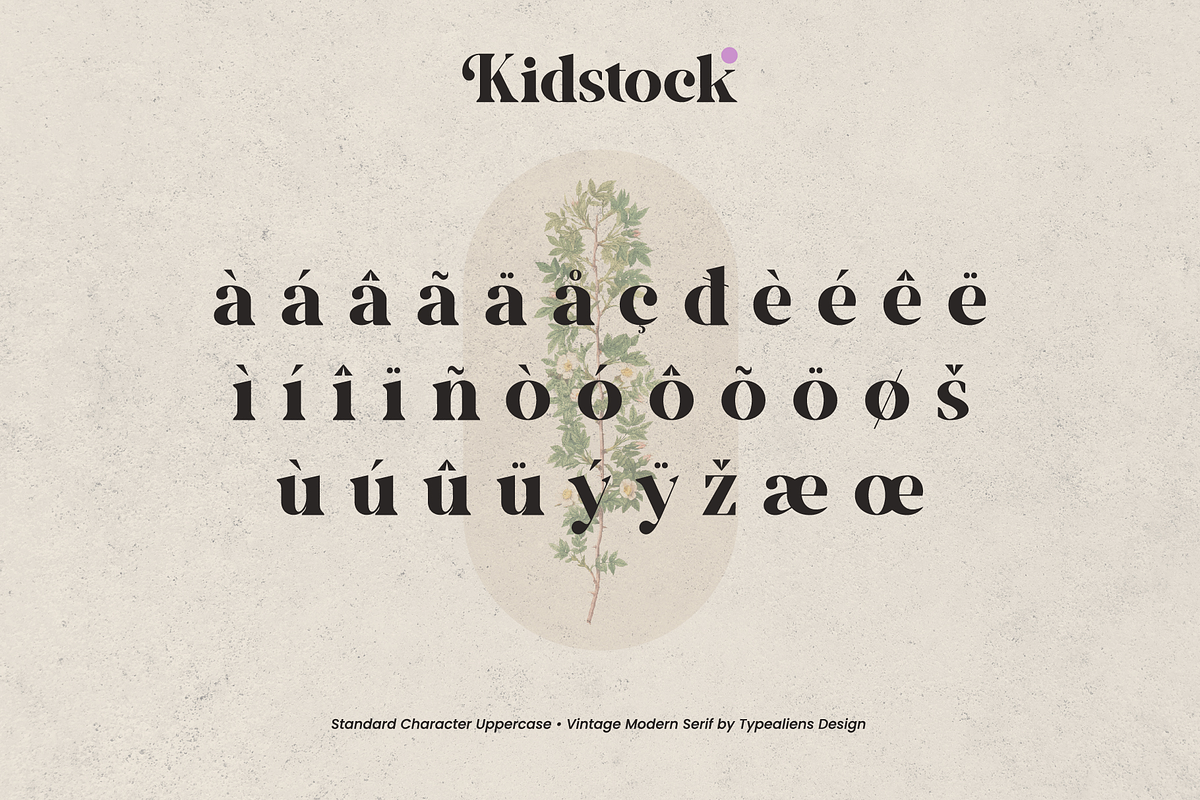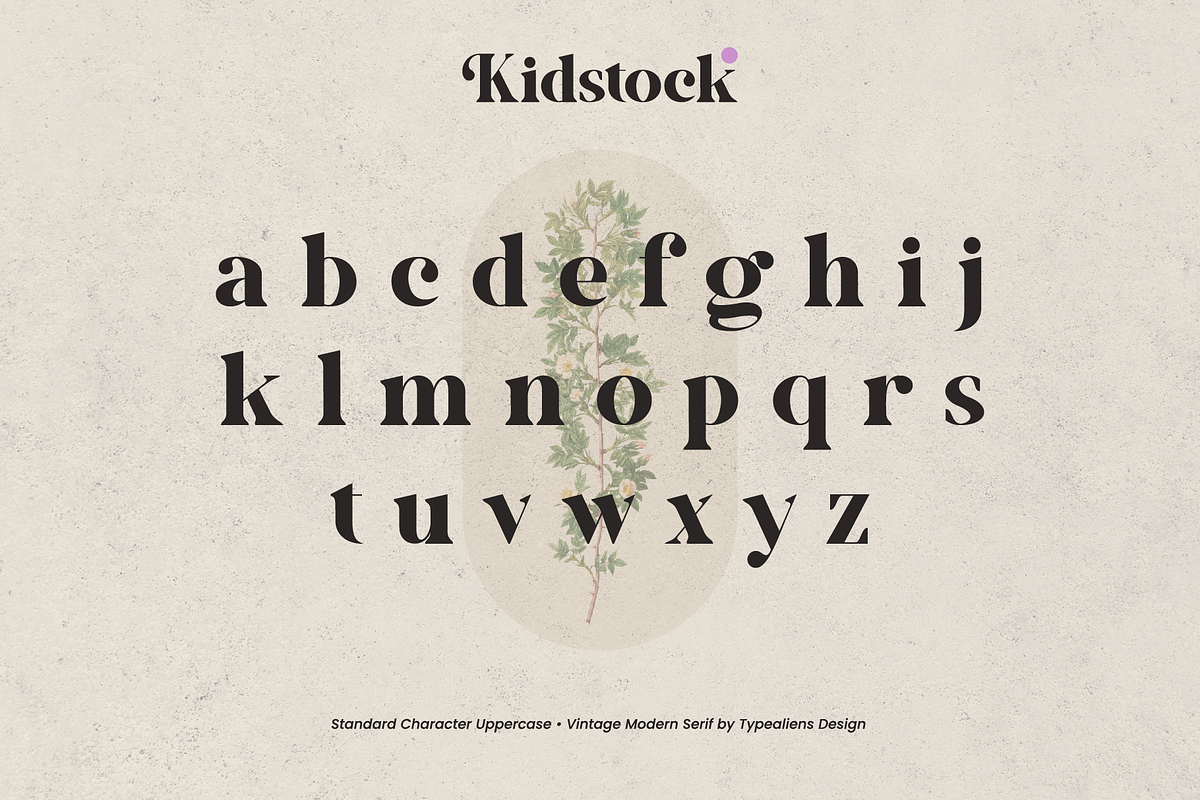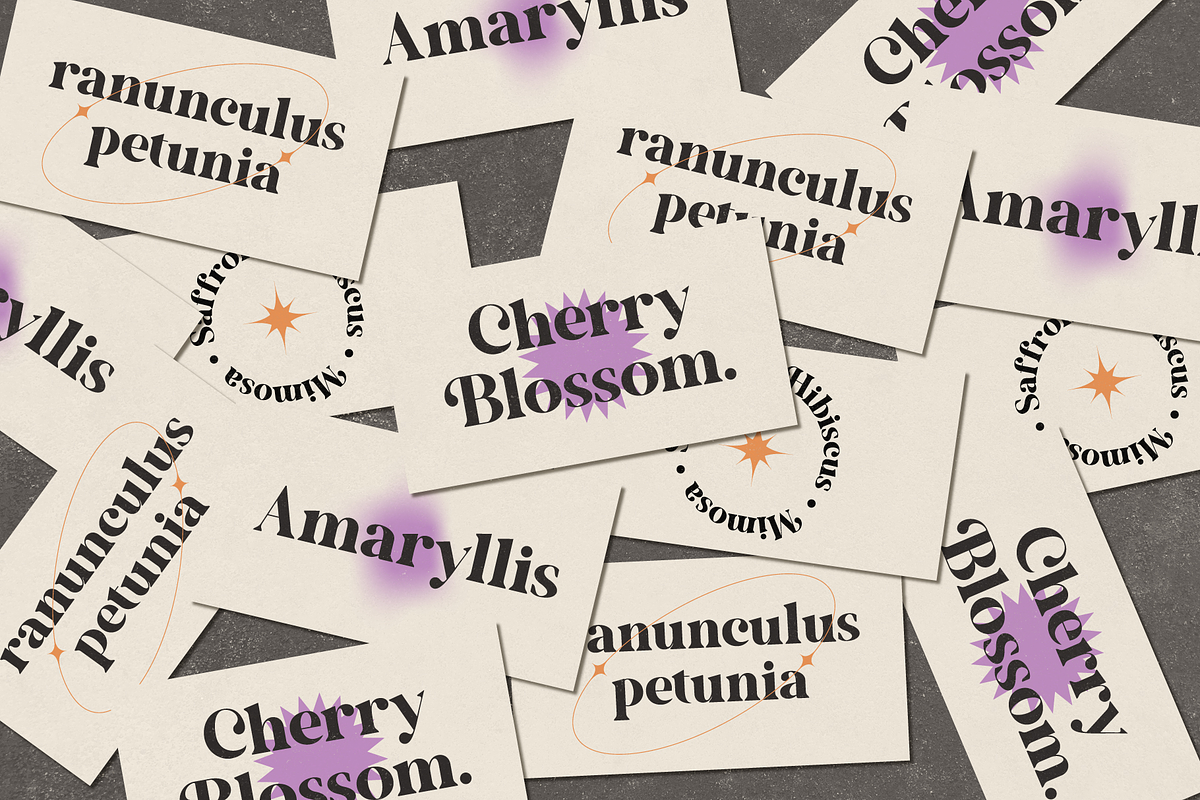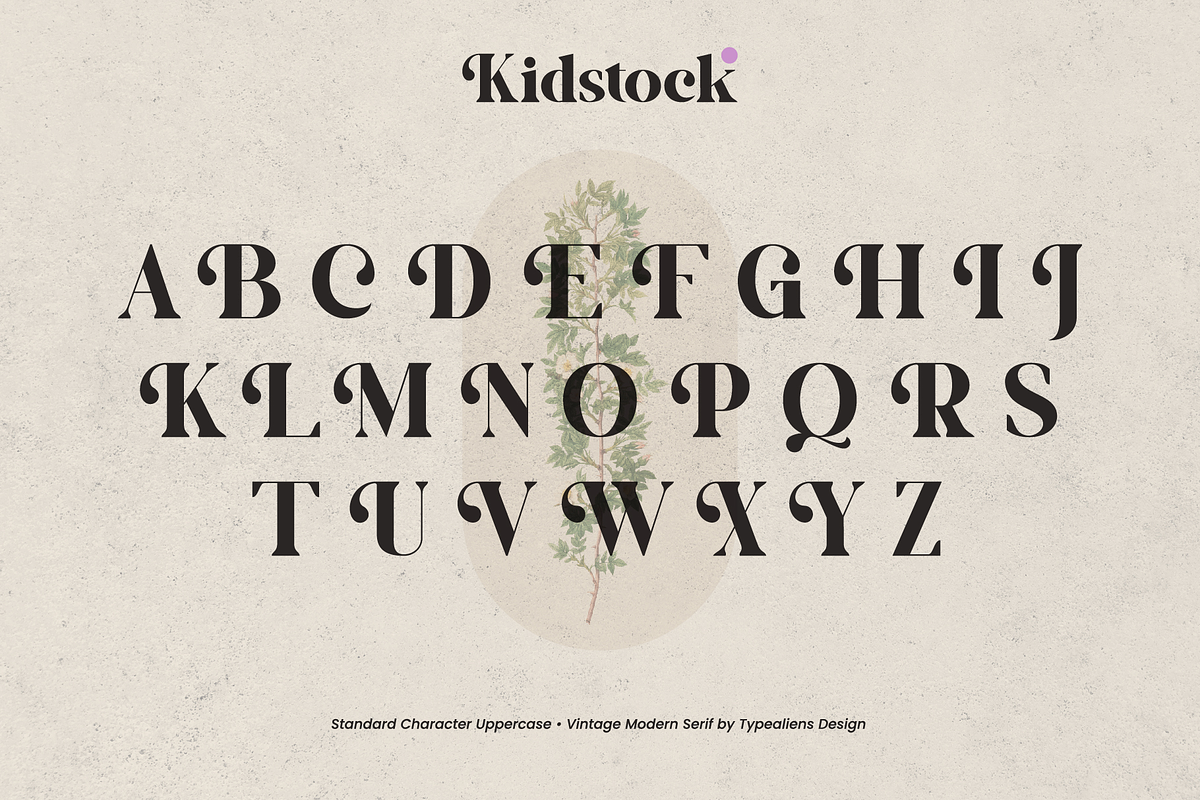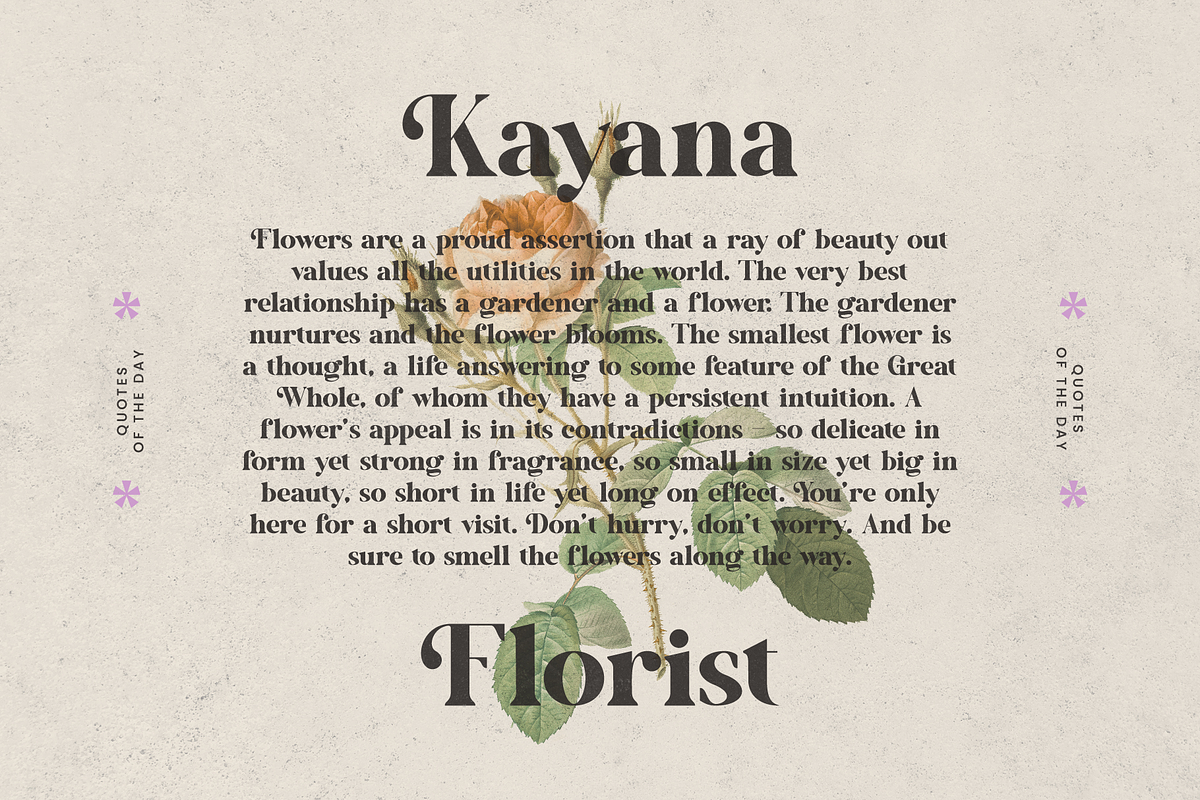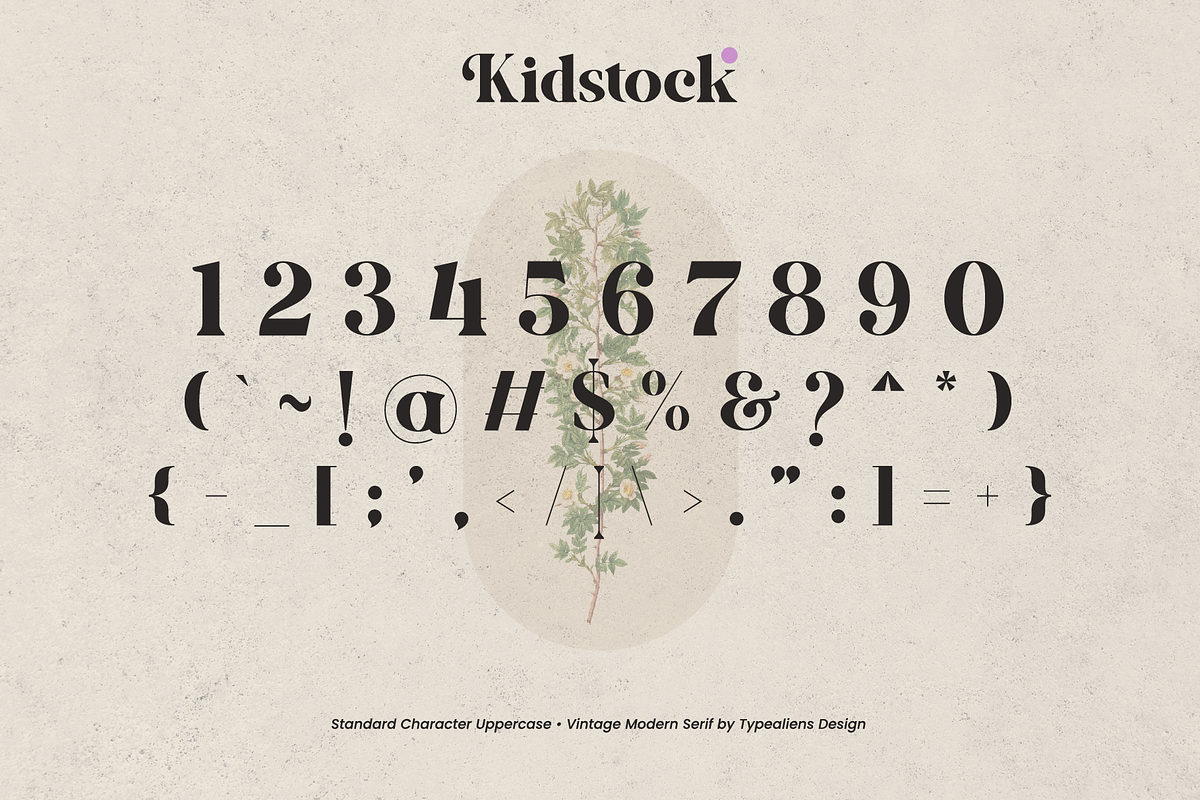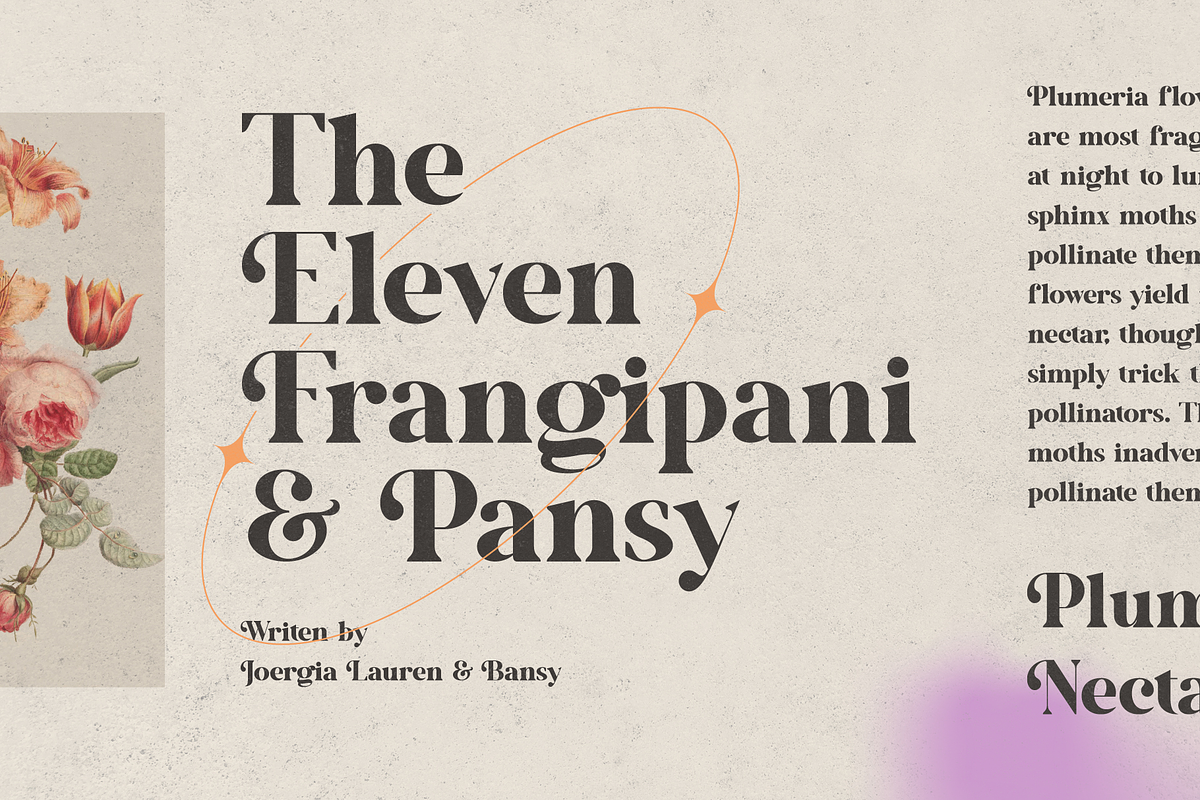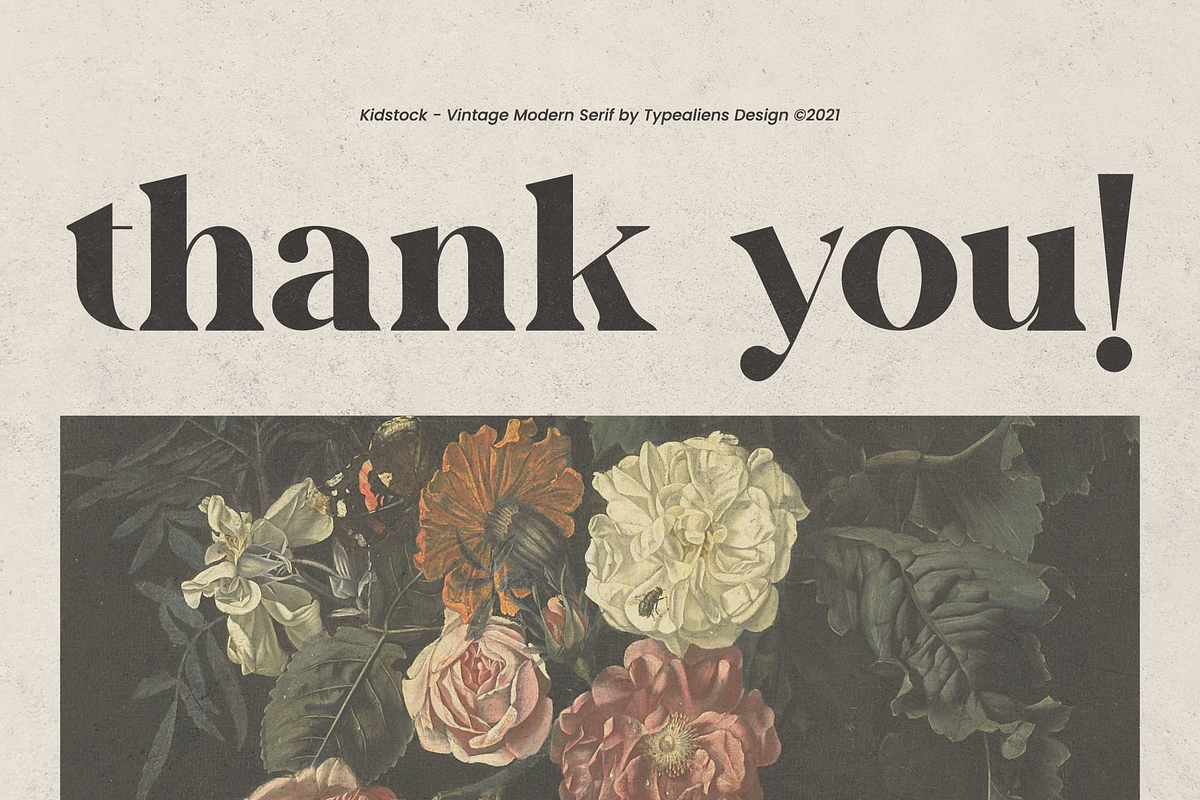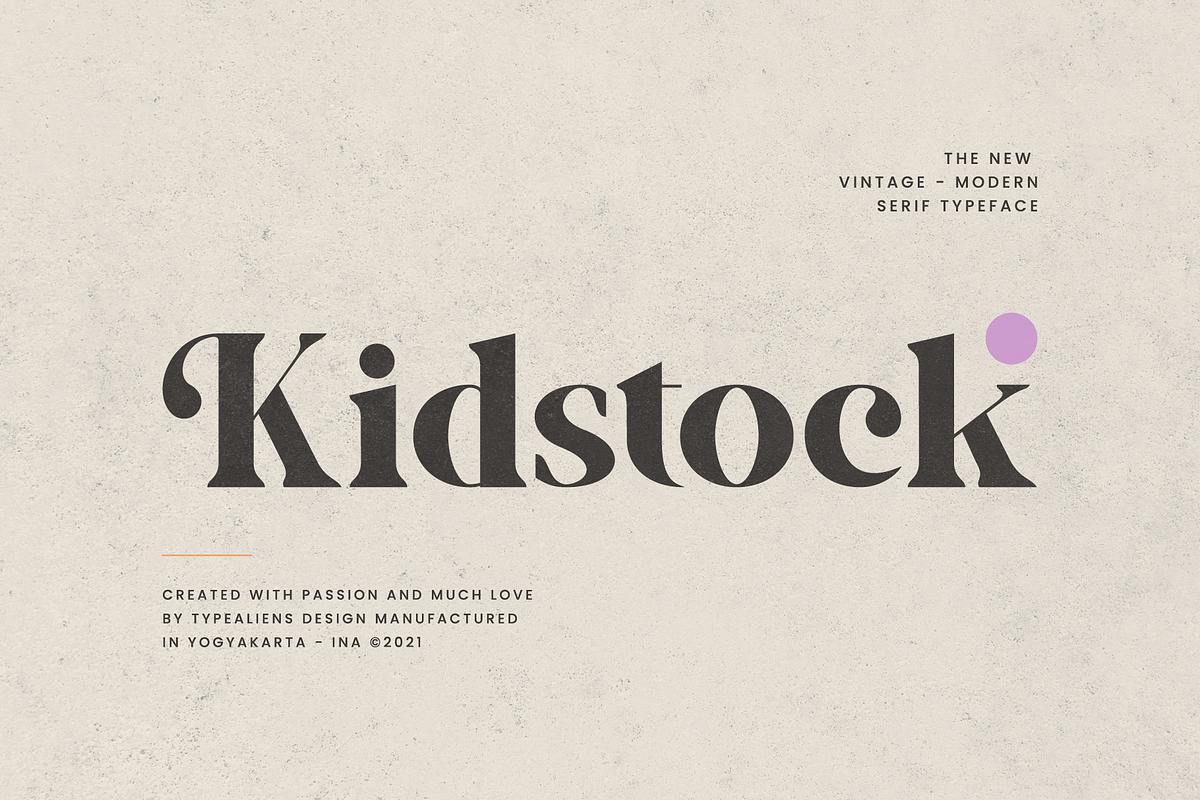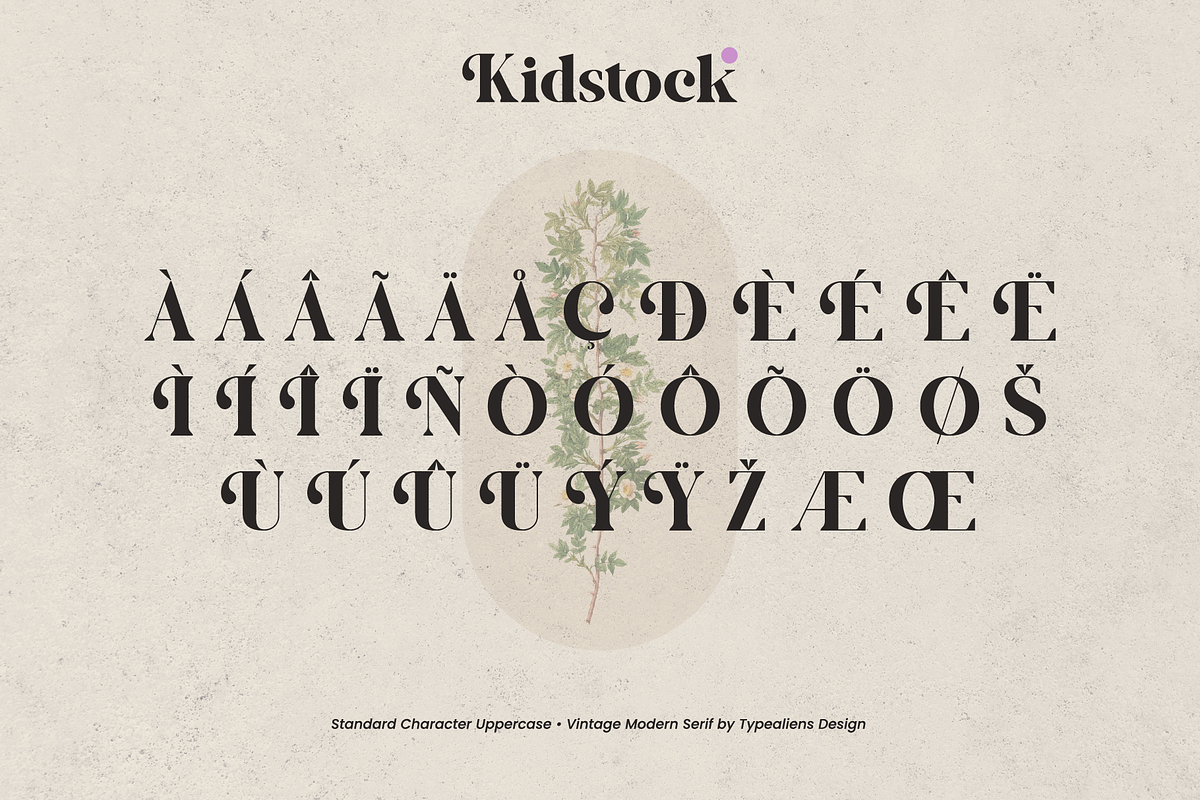
Kidstock
KIDSTOCK
Kidstock is a unique yet charming serif font, perfect for both vintage and modern designs. A touch of soft flow makes this font a bit feminine too, perfect for a magazine headline, logotype, or as a title font.